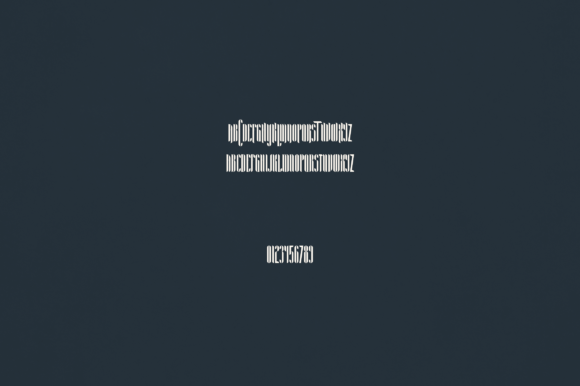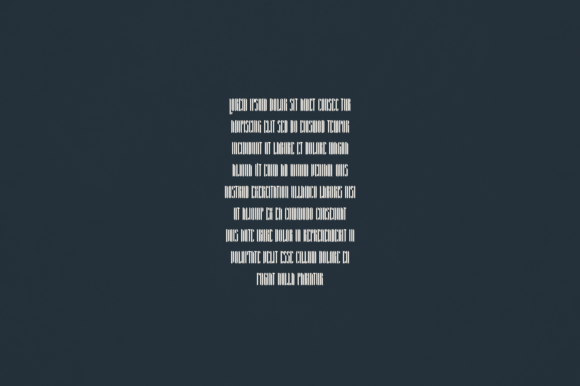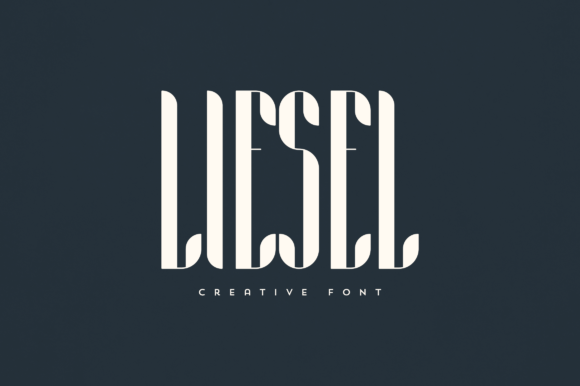
Introduction to Liesel Font
Liesel is an elegant and versatile display font that will make your typography truly unique.
It will enchant every logo, branding, headline, or plain text This font is perfect for branding projects, home-ware designs, product packaging, magazine headers – or simply as a stylish text overlay to any background image.
Liesel Font offers exceptional quality and versatility, making it a valuable addition to your design toolkit. Whether you’re creating for personal projects or commercial use, Liesel Font delivers professional results.